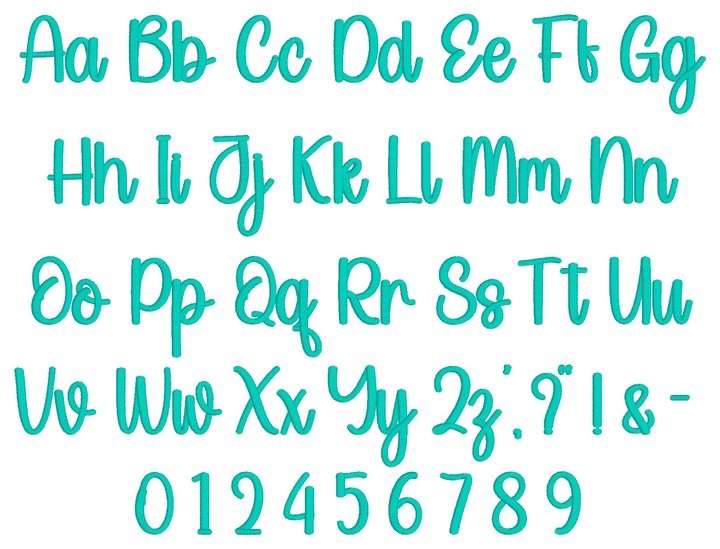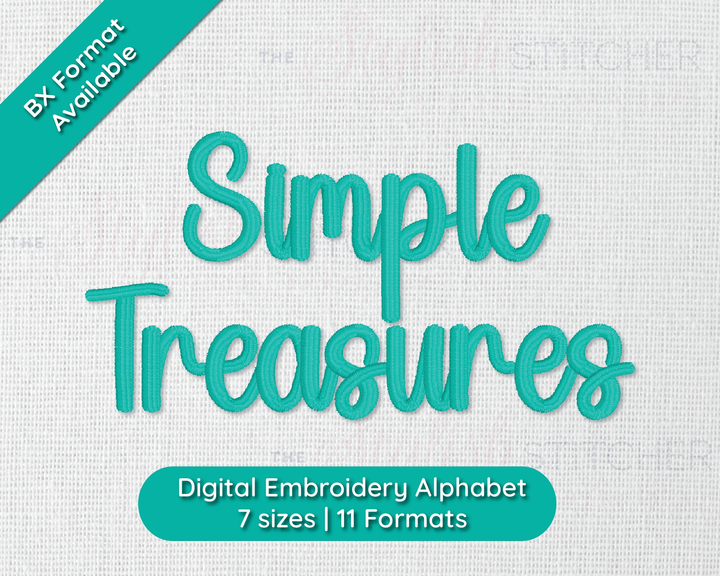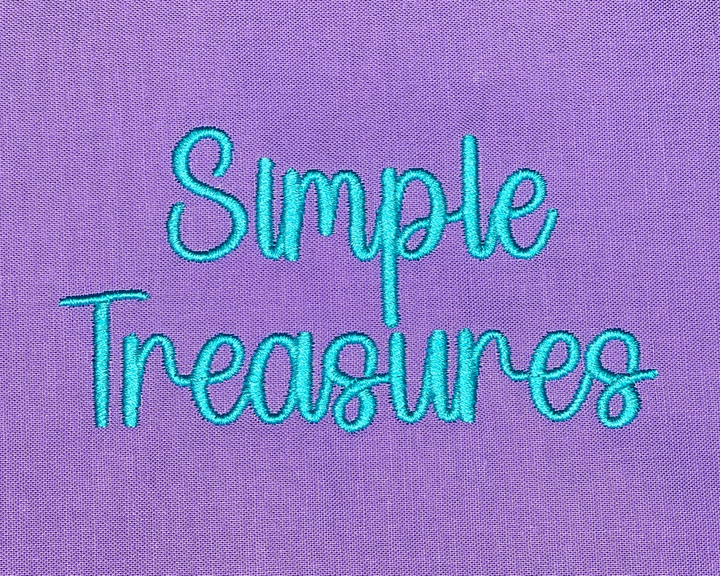
Simple Treasures Script Digital Embroidery Font
Introducing the Simple Treasures script embroidery font! This clean and stylish font is perfect for adding a personal touch to your projects. Whether you’re stitching names, quotes, or decorative elements, Simple Treasures script offers a versatile and modern look that suits any occasion.
Included: Uppercase Letters, Lowercase Letters, Alternates, 7 Punctuation, Numbers
Stitch Type: Satin Stitch + Split Satin Stitch